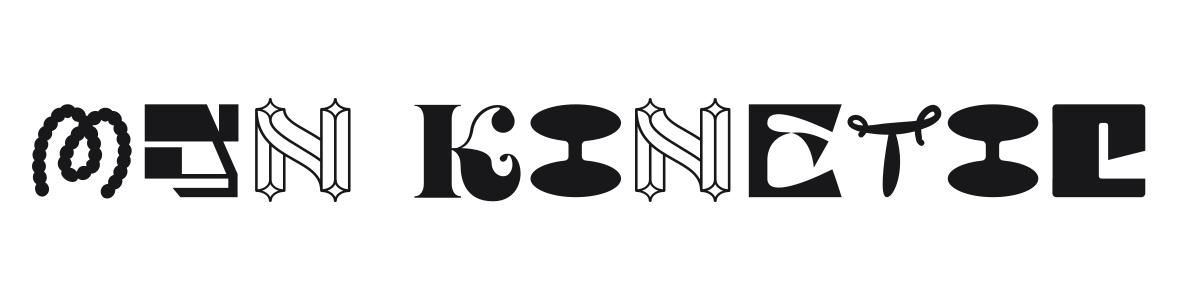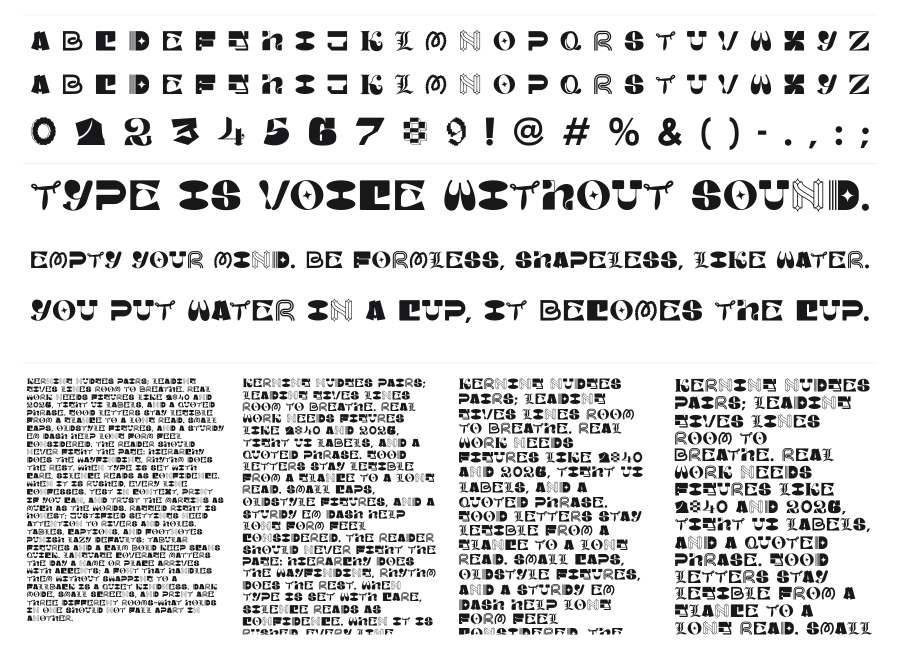
MGN Kinetic
MGN Kinetic is a bold display font where every single character is drawn in a different style, making the alphabet itself the design statement. Rope textures, blackletter strokes, star ornaments, outlines, and rounded blobs all coexist at the same weight and cap-height. The result is the visual equivalent of a ransom note made by someone with excellent taste.